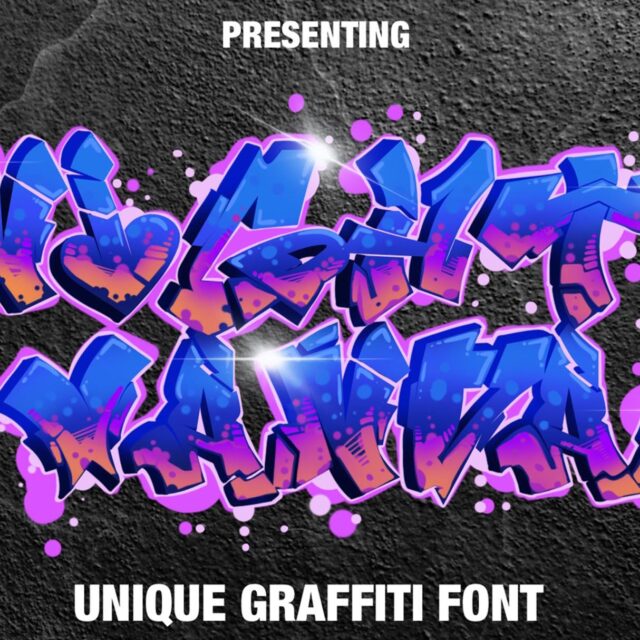
About Nightvandal
“Nightvandal” is a complex or intricate graffiti font. Fonts of this nature often feature intricate and detailed letterforms, possibly incorporating various decorative elements, styles, or intricate designs within the characters themselves. This complexity adds a unique and artistic touch to the graffiti style, making it visually captivating and distinctive.
Utilizing “Nightvandal” in your designs allows for a more intricate and detailed typographic expression, making it suitable for projects that require a bold, elaborate, or visually striking graffiti-inspired look. This type of font can be used in street art, posters, or any creative project where a complex and attention-grabbing typographic style is desired.